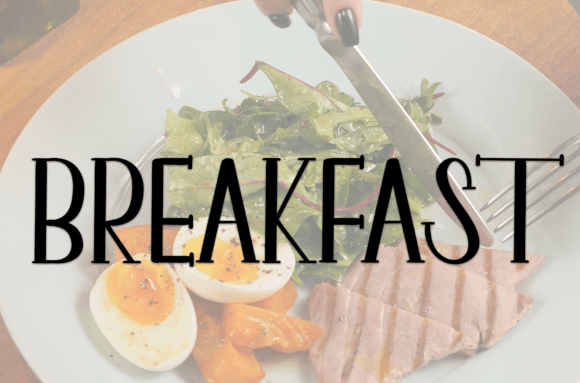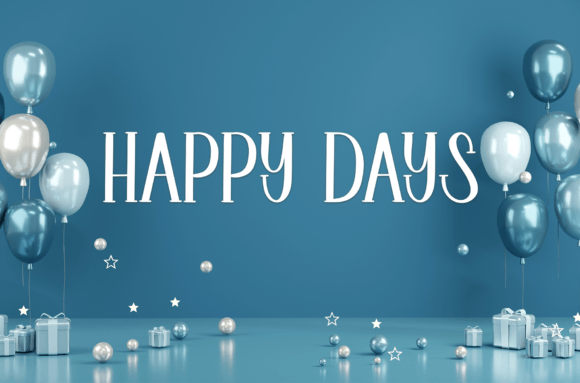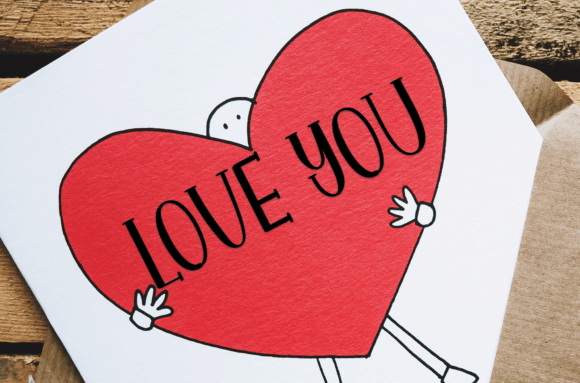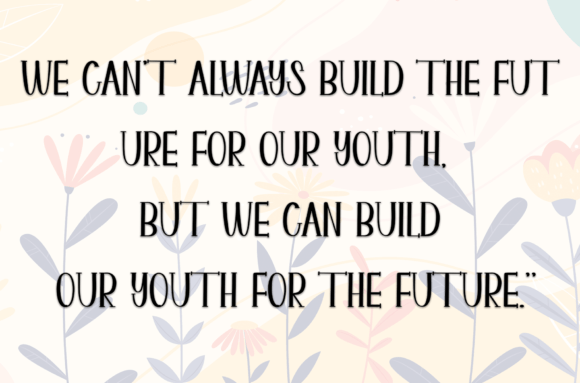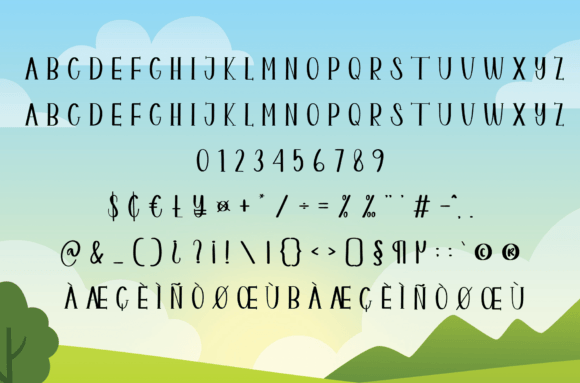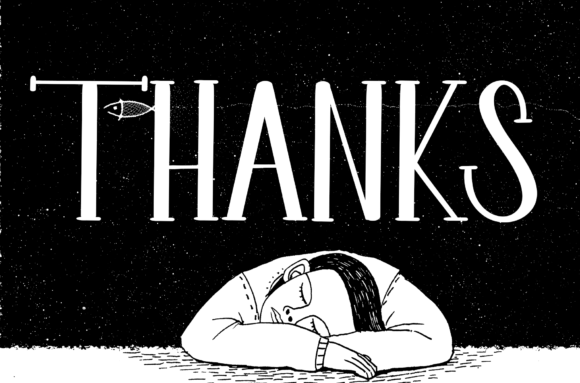
Introducing Grilled Fish Font: The Sweet and Friendly Handwritten Display Font
Are you a designer or crafter looking for a font that can add a touch of whimsy and fun to your designs? Look no further than Grilled Fish Font! This sweet and friendly handwritten display font is perfect for creating eye-catching wedding invitations, cards, and other designs that require a personal touch.
What Makes Grilled Fish Font So Special?
Grilled Fish Font is a creative and cute handwritten display font that is sure to capture the attention of your audience. Its sweet and friendly vibe makes it ideal for designs that require a touch of warmth and personality. Whether you’re designing a wedding invitation, a greeting card, or a social media graphic, Grilled Fish Font is the perfect choice.
Key Features of Grilled Fish Font
- Handwritten Display Font: Grilled Fish Font is a handwritten display font that is designed to make a statement. Its unique and creative design makes it perfect for headlines, titles, and other design elements that require a touch of personality.
- Sweet and Friendly Vibe: Grilled Fish Font has a sweet and friendly vibe that makes it perfect for designs that require a touch of warmth and personality. Its friendly design makes it ideal for wedding invitations, cards, and other designs that require a personal touch.
- Cute and Creative: Grilled Fish Font is a cute and creative font that is sure to capture the attention of your audience. Its unique design makes it perfect for designers and crafters who want to add a touch of whimsy to their designs.
Uses for Grilled Fish Font
Grilled Fish Font is a versatile font that can be used for a variety of design projects. Here are some ideas for using Grilled Fish Font:
- Wedding Invitations: Grilled Fish Font is perfect for creating beautiful and unique wedding invitations. Its sweet and friendly vibe makes it ideal for wedding designs that require a touch of warmth and personality.
- Greeting Cards: Grilled Fish Font is also perfect for creating greeting cards for special occasions. Its cute and creative design makes it ideal for birthday cards, anniversary cards, and other designs that require a personal touch.
- Social Media Graphics: Grilled Fish Font can also be used to create eye-catching social media graphics. Its unique design makes it perfect for creating graphics that require a touch of personality and whimsy.
Tips for Using Grilled Fish Font
Here are some tips for using Grilled Fish Font in your designs:
- Use it as a Headline Font: Grilled Fish Font is perfect for use as a headline font. Its unique design makes it ideal for grabbing the attention of your audience.
- Pair it with Other Fonts: Grilled Fish Font can be paired with other fonts to create a unique and eye-catching design. Try pairing it with a sans-serif font for a modern look or a serif font for a more traditional look.
- Experiment with Colors: Grilled Fish Font looks great in a variety of colors. Experiment with different colors to find the one that works best for your design.
Grilled Fish Font is a sweet and friendly handwritten display font that is perfect for designers and crafters who want to add a touch of whimsy to their designs. Its unique and creative design makes it ideal for wedding invitations, cards, and other designs that require a personal touch. With its versatility and ease of use, Grilled Fish Font is a great addition to any designer’s toolkit.